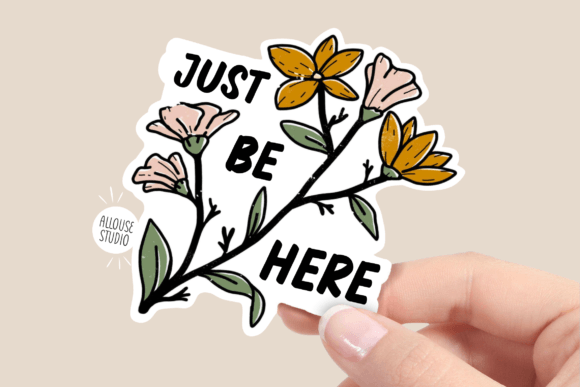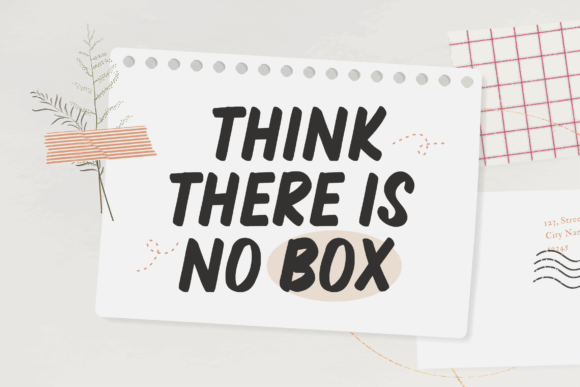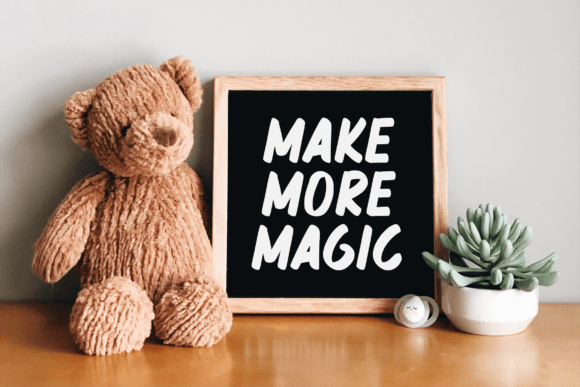
Discovering the Perfect Font for Your Next Creative Project
As a designer, there’s nothing quite like the thrill of discovering a new font that perfectly captures the essence of your project. It’s like stumbling upon a hidden treasure that elevates your work from good to great. For me, that moment came when I stumbled upon the Megah Diterima Font – a quirky, high-quality display font that’s as versatile as it is unique.
What I love about the Megah Diterima Font is its ability to add a touch of personality to any design project. Whether you’re working on a logo, a social media campaign, or a free download resource, this font is sure to make your design stand out. With its transparent background and clean lines, it’s the perfect addition to any creative project.
Key Features of Megah Diterima Font
- High-Quality Design: Megah Diterima Font offers a high-quality design perfect for creative projects.
- Transparent Background: The font features a transparent background, allowing for easy customization and blending with other design elements.
- Large Character Set: The font includes a large character set, including uppercase and lowercase letters, numbers, and punctuation marks.
- Perfect for Digital and Print Projects: Megah Diterima Font is suitable for both digital and print projects, including logos, posters, and business cards.
- Resolution: The font is designed to be scalable and can be used at high resolutions, ensuring crisp and clear text even at large sizes.
Honest Review: Megah Diterima Font
As a designer, I’m always on the lookout for high-quality design resources to elevate my creative projects. The Megah Diterima Font caught my attention, and I decided to give it a try. Here’s my honest review.
- High-quality font: The Megah Diterima Font is well-designed and looks great on screen.
- Transparent background: The transparent background option is a nice touch, allowing for easy customization.
- Limited character set: The font only includes a limited character set, which may not be suitable for all projects.
- No bold or italic options: The font is only available in regular style, which may limit its versatility.
Overall, I think the Megah Diterima Font is a solid design resource, but it’s not perfect. The limitations are worth considering, especially if you need a font with a wider character set or bold/italic options. However, if you’re looking for a high-quality font with a transparent background, it’s definitely worth a try.
Megah Diterima Font
The Megah Diterima Font is a high-quality design resource available for free download. With its transparent background, it’s perfect for adding a touch of creativity to your projects.
To get the most out of the Megah Diterima Font, use it in creative projects where you want to add a unique touch. Experiment with different font sizes, colors, and arrangements to create visually appealing designs.
The Megah Diterima Font is perfect for:
- Presentations and documents
- Logos and branding materials
- Illustrations and graphics